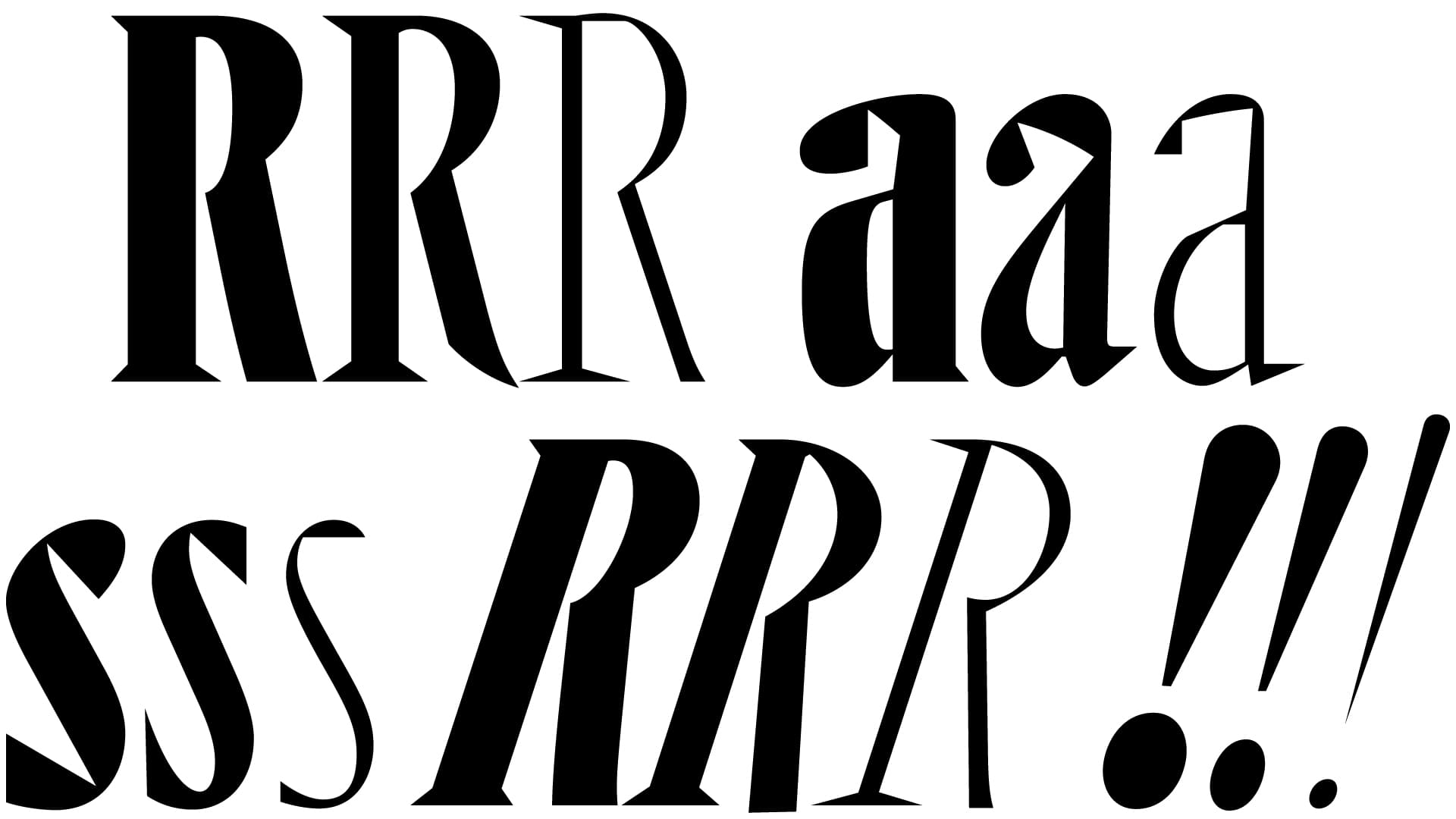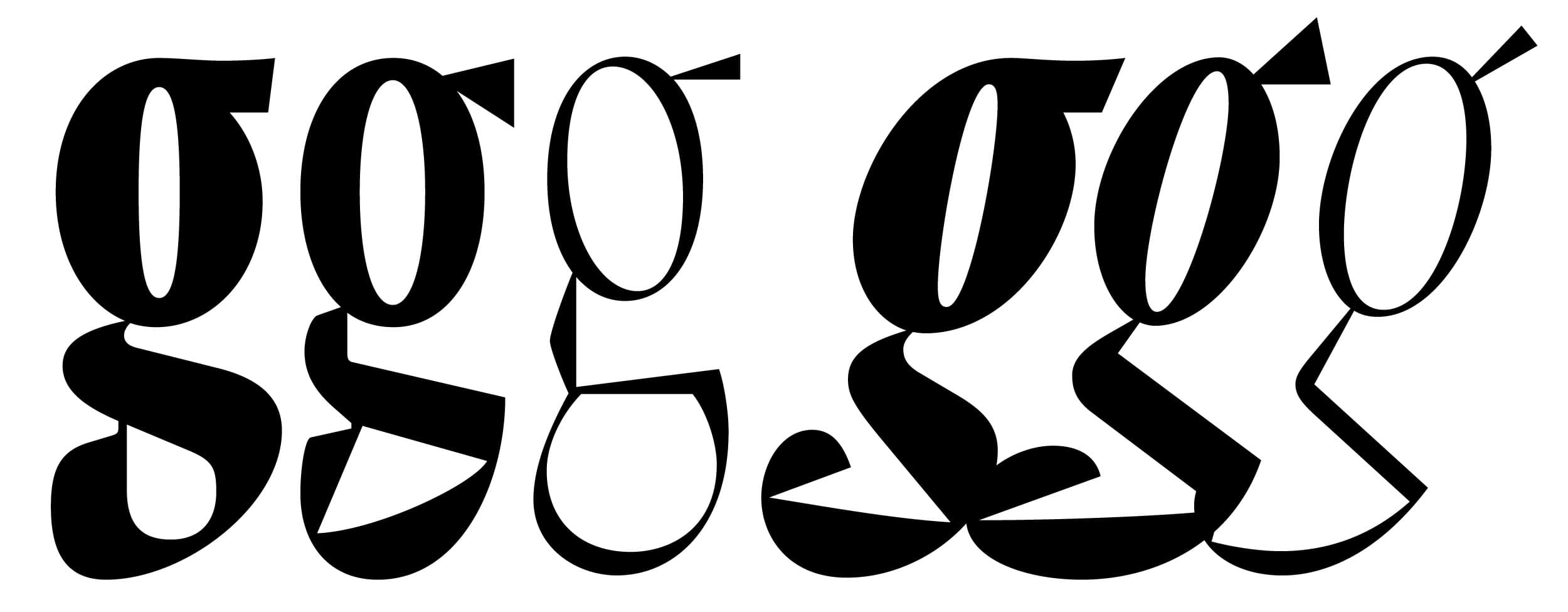
Eterne Display
Dynamic, dramatic, and dense with detail, Eterne Display is a compact and springy suite of titling fonts drawn by Kia Tasbihgou. As eye-catching as it is unconventional, its condensed forms have been gracefully articulated with skilled pageantry. Eterne Display began as a direct response to printed magician’s ephemera and reveals its designer’s legerdemain, taking cues from French titling types like Deberny & Peignot’s Elzévir Gras Allongé. Idiosyncratic incisions and gestural twists on convention are deftly deployed to suit editorial contexts in which prestige, pragmatism, and space are at a premium.
During the production of the release we discussed an essay by the artist Kita Racaño Ward, which reconsiders time as an active force. Ward uses the metaphor of an apple tree, which reveals itself not merely as an object existing in time, but “as an active timekeeper orchestrating multiple temporal streams.
Eterne features two distinct-but-related display and text families. As a self-taught type designer, Kia has described his approach as “designating space for a unity between unconventional forms and utility.” Eterne is no exception, and it marks an evolution. With its brusque geometric forms and nervy angles, Eterne’s combination of elemental and sinuous shapes abut white space with an uncommon flourish, glimmering elegantly with a showmanship that belies its functional construction.
sinf
Scientific Inferiors
ss01
subs
Subscript
sups
Superscript
swsh
Swash
tnum
Tabular Figures